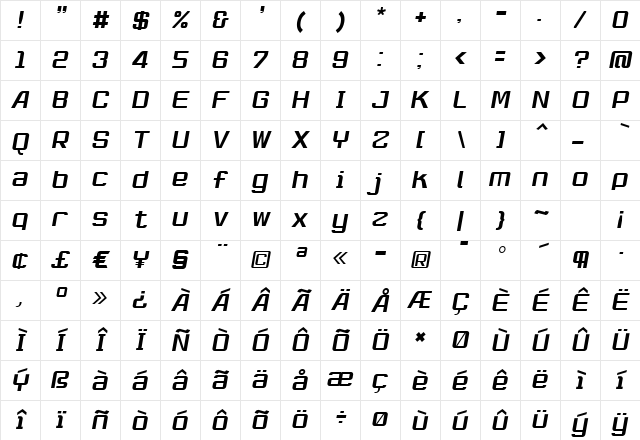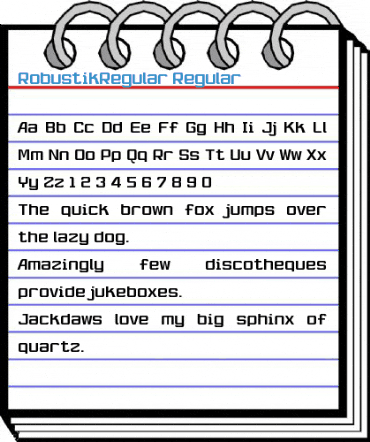
RobustikRegular Oblique is a composed and adaptable typeface that performs quietly and consistently across a wide range of design contexts. The slanted form adds forward momentum and visual energy.